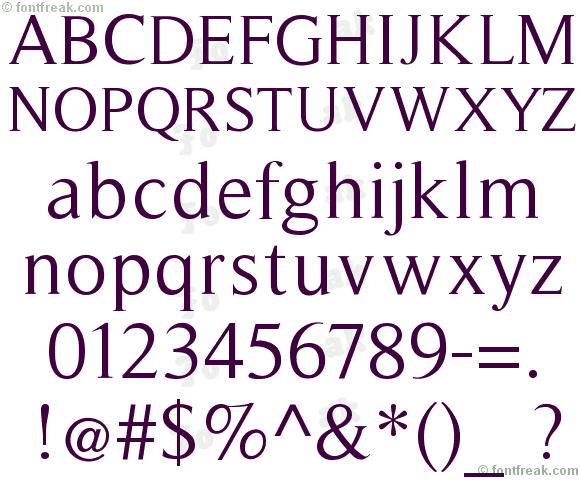
About Timeless-Bold
The Timeless-Bold font by Manfred Klein is a striking serif typeface that combines classic elegance with bold presence, making it a versatile choice for various design projects. Released in 2002 under a freeware license, this font showcases a robust stroke weight that conveys strength and confidence. The high contrast between thick and thin lines provides a dynamic visual appeal, while the slightly condensed spacing ensures readability without sacrificing style. Its distinctive serifs add a touch of sophistication, making it ideal for projects that require a timeless yet modern aesthetic.
This font is particularly suited for wedding invitations, where its elegant design can enhance the celebratory aspect of the occasion. It also works wonderfully for movie posters, capturing attention with its boldness and classic appeal. Restaurant menus can benefit from the Timeless-Bold font, as its readability and style can elevate the dining experience. Additionally, it serves well in branding materials for small business owners seeking to make a memorable impression on clients or customers. Content creators, such as bloggers and marketers, will also find this font useful for headers and promotional materials that demand immediate attention.
Timeless-Bold stands out in the crowded world of typography due to its unique blend of traditional serif characteristics and contemporary strength. Its ability to convey elegance and professionalism makes it a favorite among graphic designers and creators looking for a reliable and stylish typeface. The Timeless-Bold font free download offers an excellent opportunity for anyone seeking to enhance their design projects with a font that embodies both sophistication and versatility. This font not only captures the essence of timeless design but also invites users to explore its potential in their creative endeavors.